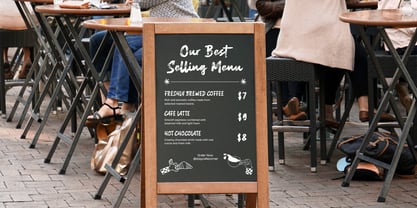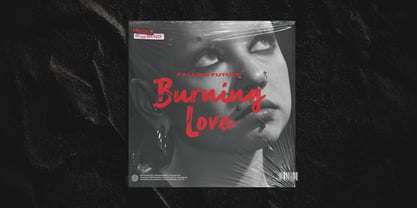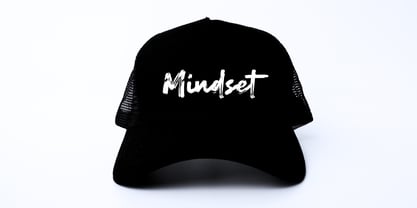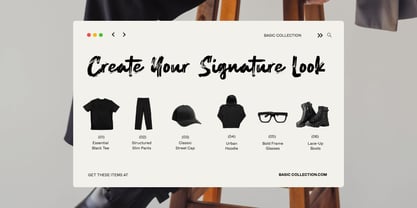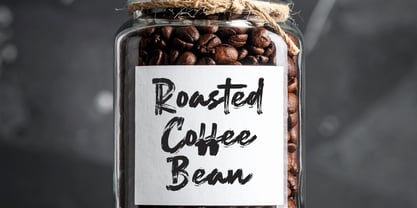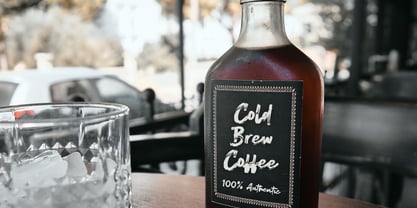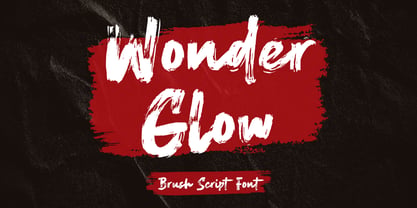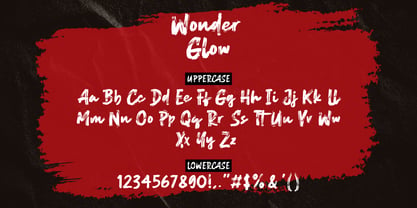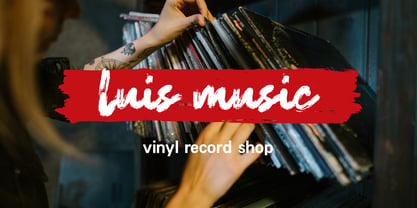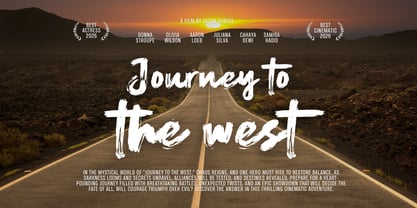
Wonder Glow
by Fikryal
The Wonder Glow Font Family was designed by Muhammad Fikry and published by Fikryal. Wonder Glow contains 1 styles. More about this family
Wonder Glow is a striking brush script font that showcases authentic hand-drawn strokes and a natural, organic flow. This font captures the expressive quality of real brush lettering while ensuring clarity and balance. Its bold structure guarantees excellent visibility, making it perfect for branding, packaging, headlines, and digital content. With a strong yet elegant handcrafted appearance, Wonder Glow is ideal for a variety of design applications, whether modern or vintage-inspired.